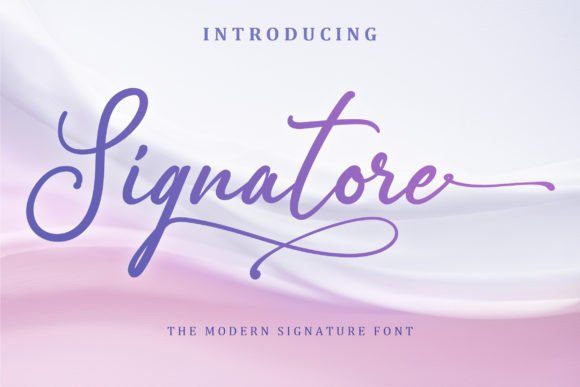
Behold, the Signatore Font: A Symphony of Sophistication and Grace for Your Creative Endeavors!
Delve into the realm of elegance and charm with Signatore Font, a script font that drips with sophistication and poise. A creation of Dipati Creator, this font exudes a delicate and stylish allure that is sure to captivate your audience. Picture the perfect harmony between flowing curves and crisp lines, mesmerizing your readers and leaving them spellbound by your artistry.
Immerse yourself in a world of possibilities with Signatore Font, the perfect companion for your creative journey. Whether you're designing t-shirts that exude individuality, crafting invitations that radiate elegance, or conjuring up magazines that exude opulence, Signatore Font will effortlessly elevate your designs to new heights. From photography projects that yearn for a touch of refinement to branding endeavors that crave a timeless appeal, this font will effortlessly weave its magic, leaving an indelible mark on your creations.
Harness the power of Signatore Font to forge a logo that embodies your brand's essence. With its inherent ability to command attention, this font will ensure that your logo stands out amidst a sea of mediocrity. Its intricate details and graceful strokes will impart a sense of luxury and distinction, setting your brand apart from the rest.
Step into the spotlight and let Signatore Font be your guide as you unveil your creative masterpieces. With its versatility and charm, this font will transform your designs into captivating works of art. Embrace the essence of sophistication and grace, and let Signatore Font orchestrate a symphony of beauty in your creative endeavors.